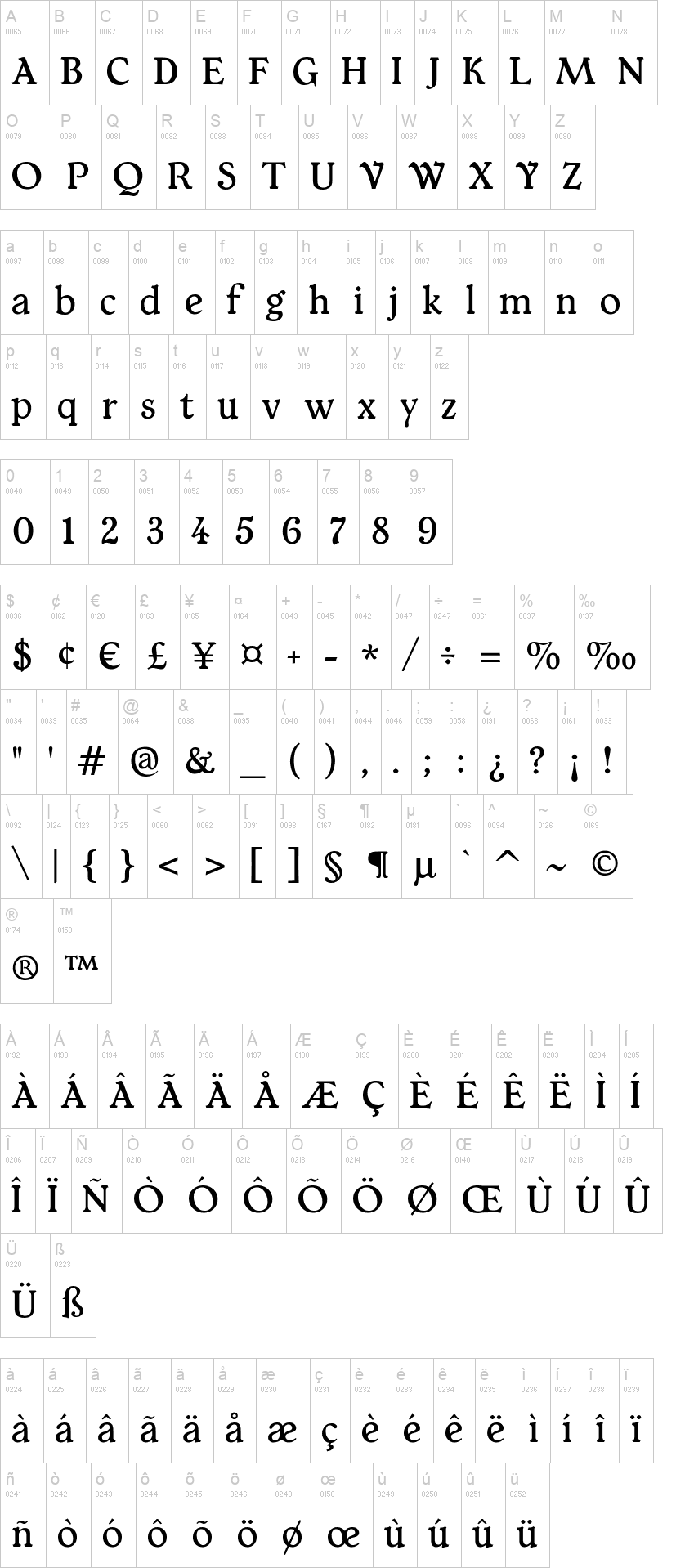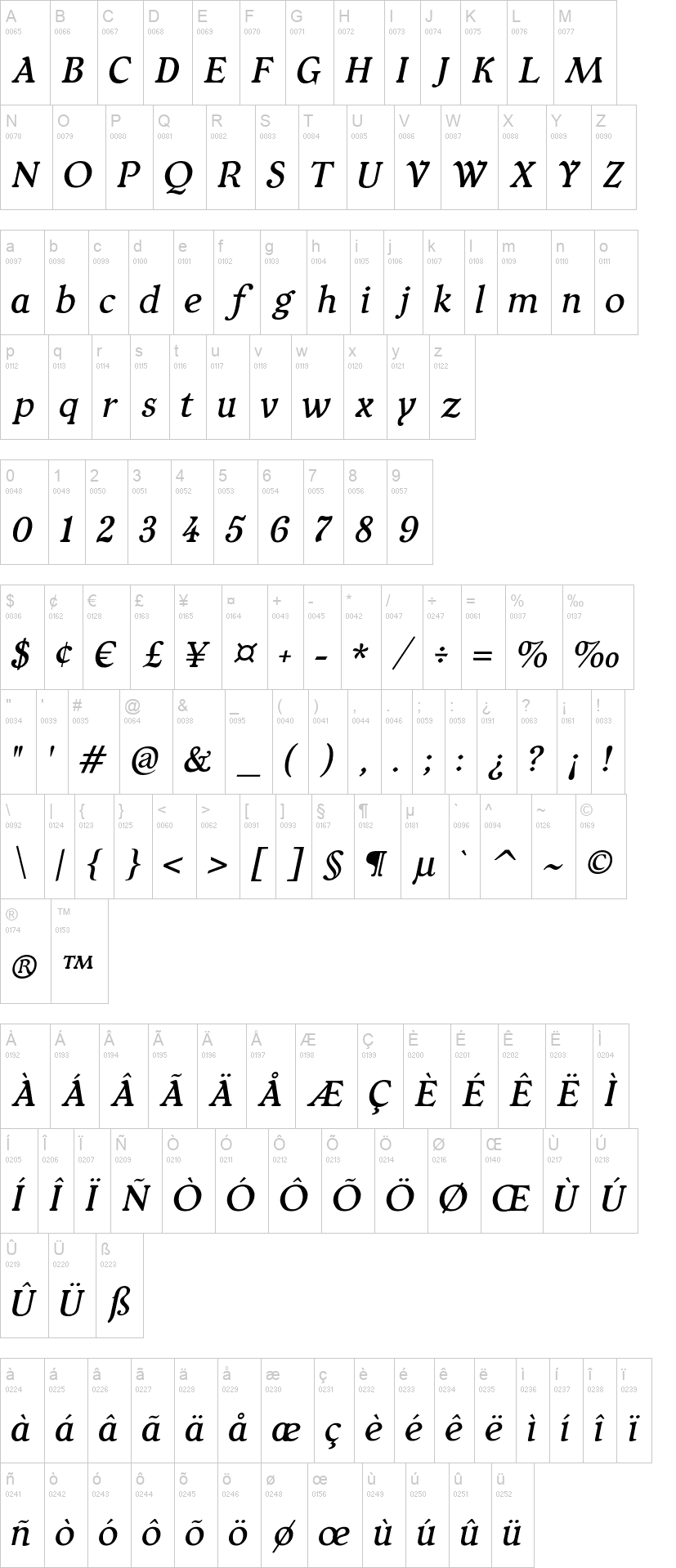
I started out trying to design a font suitable for the inclusion of all the characters in the MUFI version 4.0 standard. This font was to be called 'Old Toby'. It is almost always better to start with an existing font than to start with a blank canvas, ideally you want to start with a font that is as close to your desired result as possible, it also has to be free and open source to avoid any licensing infringements.
I needed a quaint old style looking font with some character but not an overpowering character.
I happened upon a font called 'Chelsea' which was available as a free download. The metadata within the font did not contain much information about the author or license but I eventually traced the font to a German man called Deiter Steffman and I sent him an e-mail asking if I could use his font for a derivative work. Much to my delight he replied saying yes.
Some time later there was a lot of news coverage about the name of the new arctic exploration vessel. The people commissioning the new vessel had set up a website upon which the people could vote for the name of the vessel. But then because they didn't like the name that the public had chosen they decided to ignore the vote and choose the name themselves. That is when the name for the font occurred to me.
At first I tried to construct a quick and dirty font to get the name but it turned out to be a very poor looking font so I deleted it and decided to use the prototype for 'Old Toby' but just filled out enough to be a useful font under Windows. It has all the glyphs in the Windows Glyph List 4 plus a few extra.
Meanwhile 'Old Toby' has not been forgotten, this font will eventually be developed into 'Old Toby'.